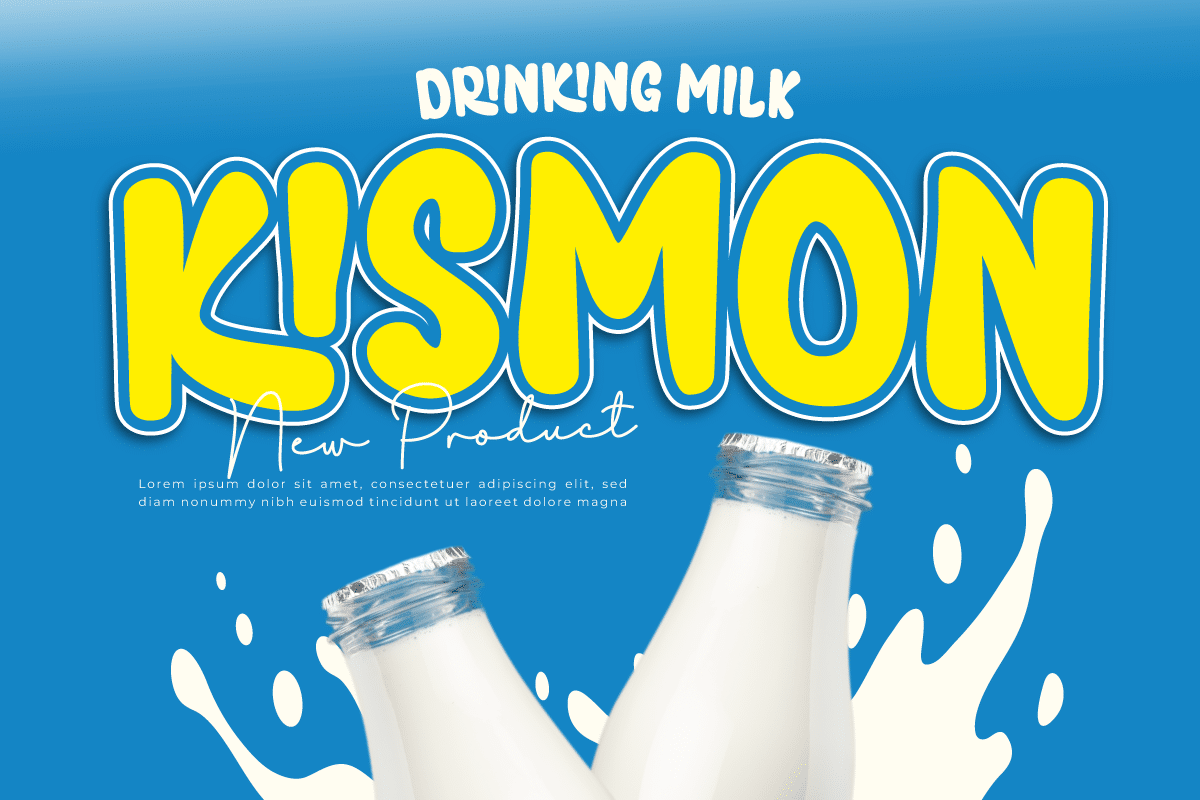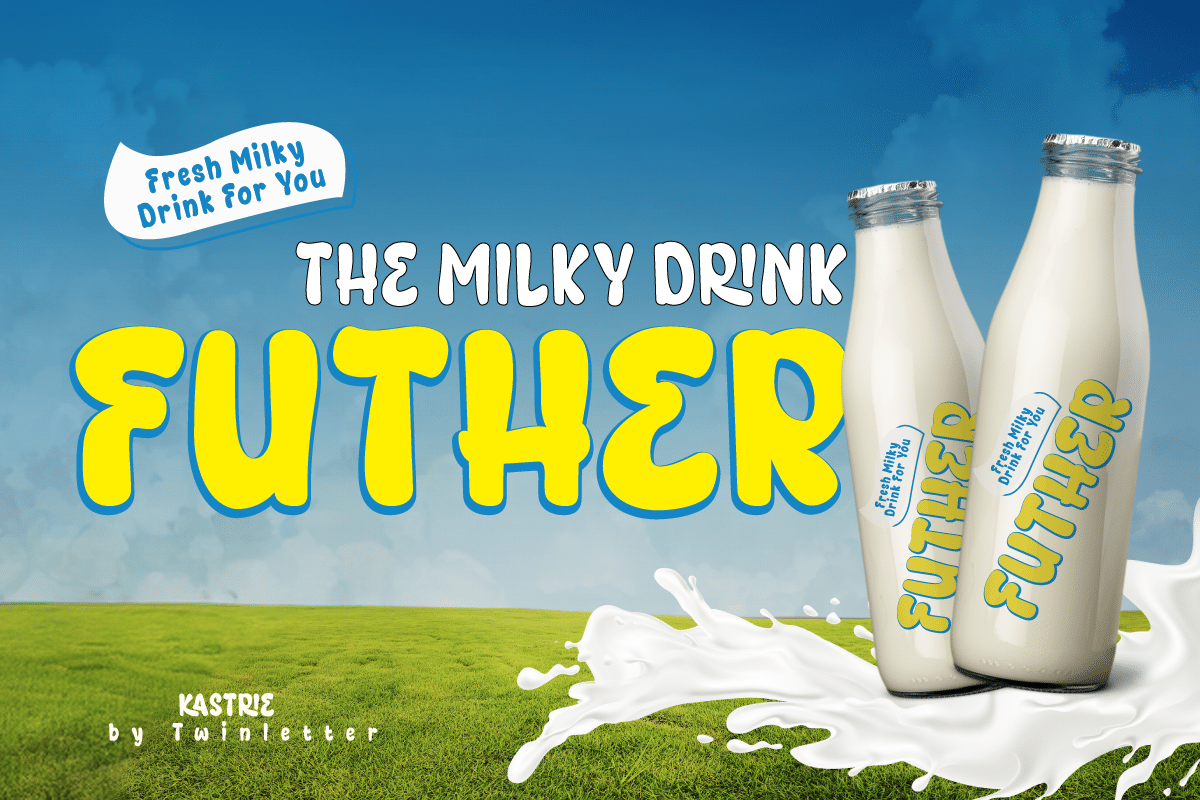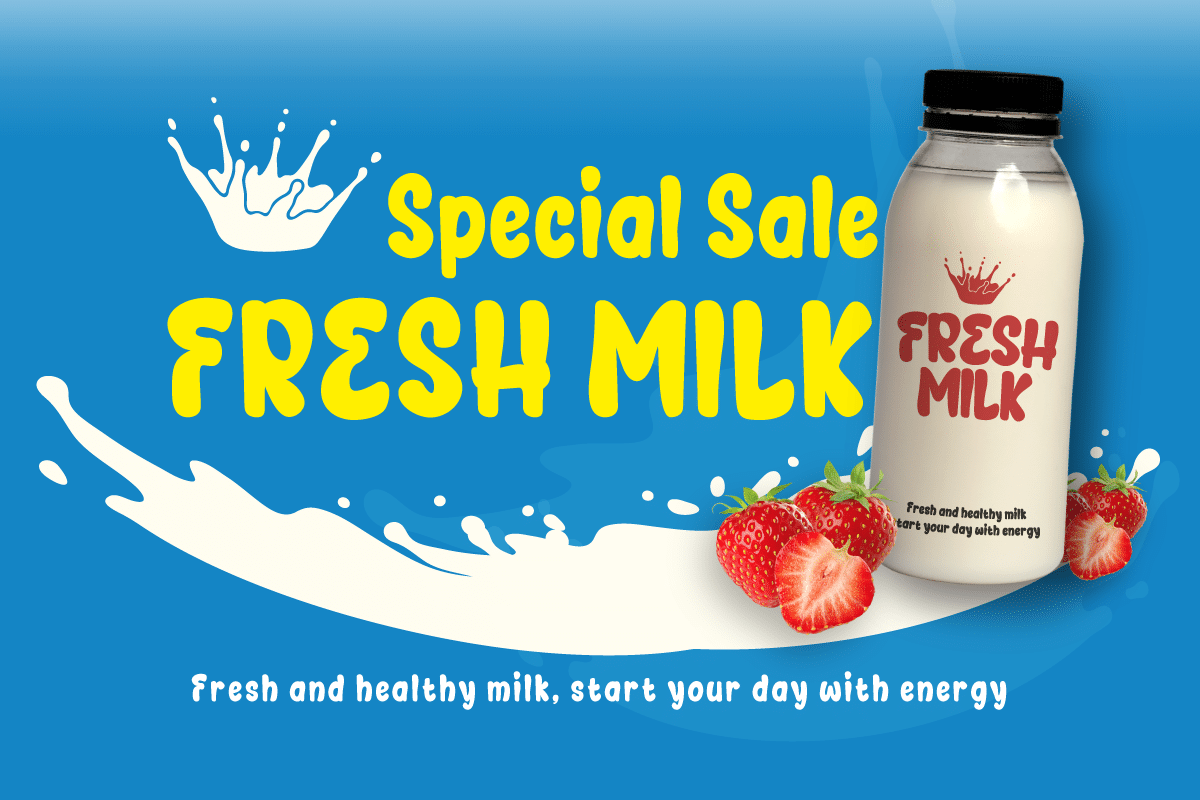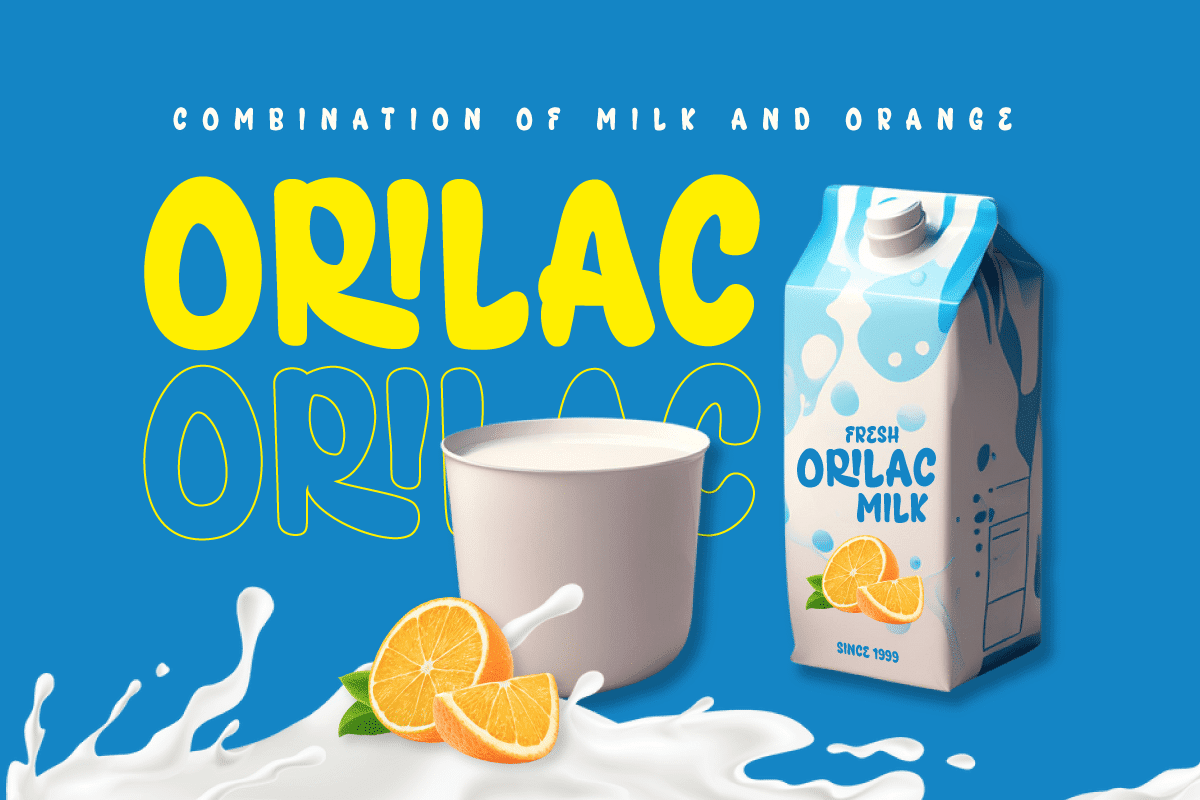
Kastrie Milk Display Font
Kastrie is a display font created specifically for branding and promotion of milk beverage products and their derivatives such as yogurt, cheese, and ice cream. However, this font is also flexible enough to be used for branding other beverage products that want to convey a fresh, fun, and adorable impression.
This font has a strong, fat, and curved character, creating a cute and cheerful impression that is suitable for promoting milk-based products and other soft drinks. Available in uppercase, lowercase, numbers, punctuation, and supports multilingual and ligatures.
Kastrie is very flexible for various design applications such as packaging labels, advertising, promotional media, and store branding. The thickness of the letters still ensures good readability even when used as a large title or headline. The visual combination of bright colors, a milk drop illustration, and a blue background creates an inviting impression.